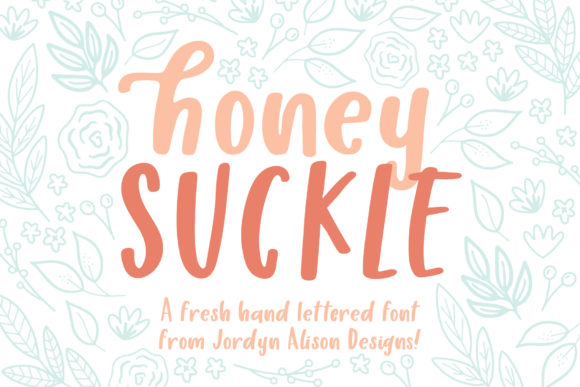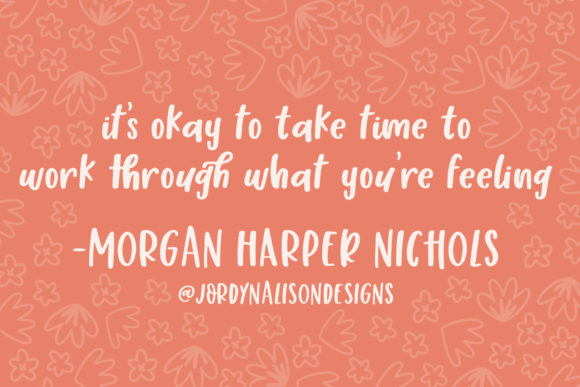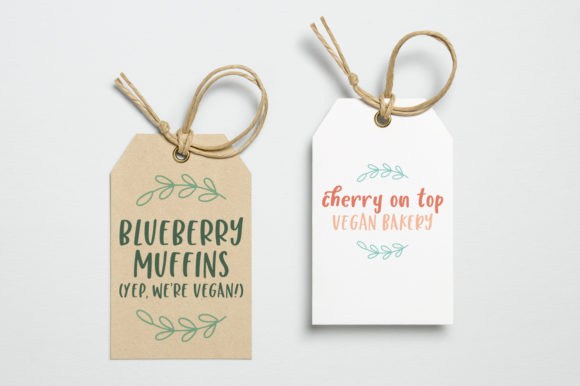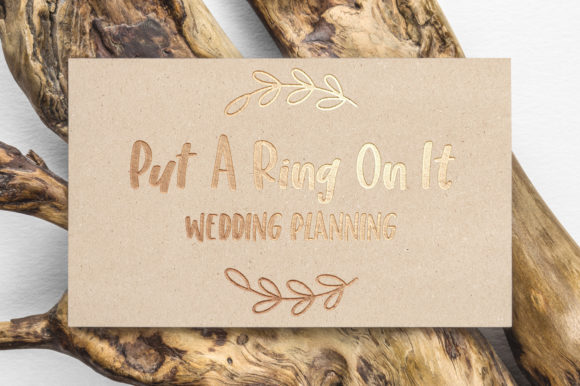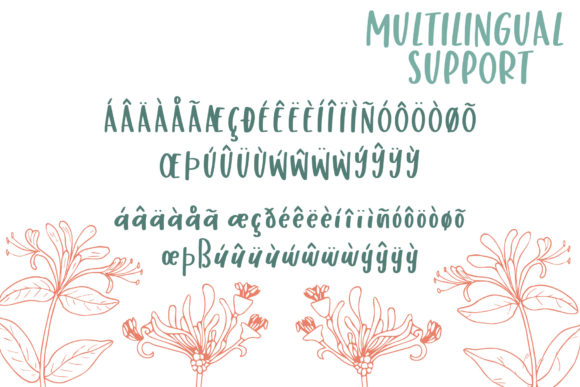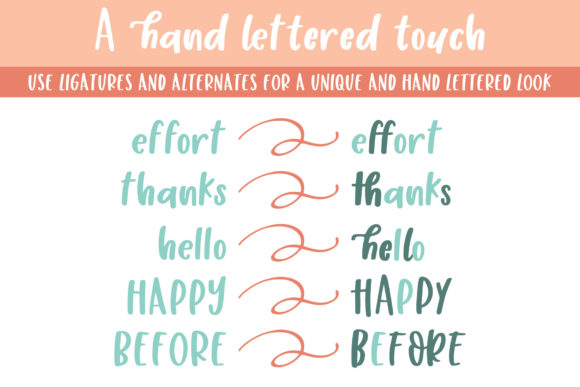
Honey Suckle Font
About Honey Suckle Font
Honey Suckle is a fresh and playful script font that’s great for a multitude of design projects. It has an incredibly light, romantic and warm feel that will elevate any projects, whether you’re working on branding projects, hobby crafting or anything else!